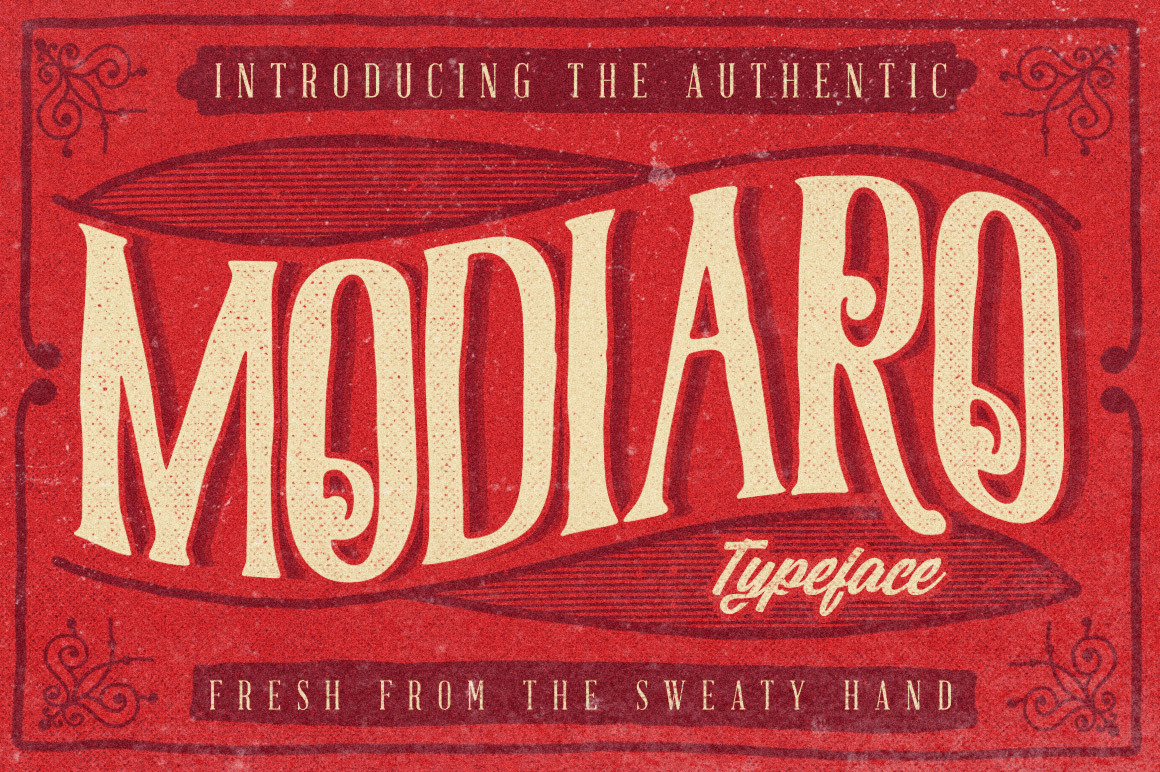
Modiaro vintage branding logo font
Modiaro Typeface is inspired from the oldstyle handmade swirl in vintage ornamental design, all done in handmade lettering style to approach the vintage classic look when there's no computer at all in that era. Absolutely vintage guaranteed for your design needs.